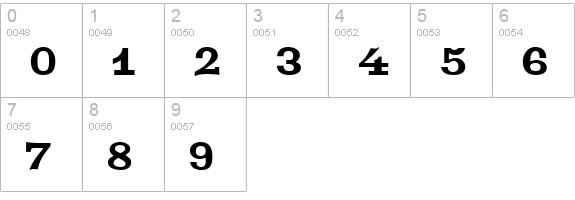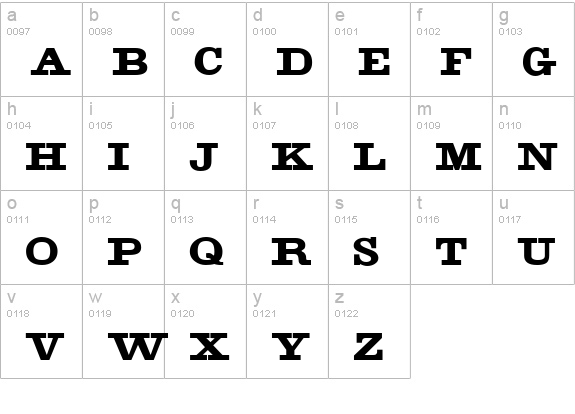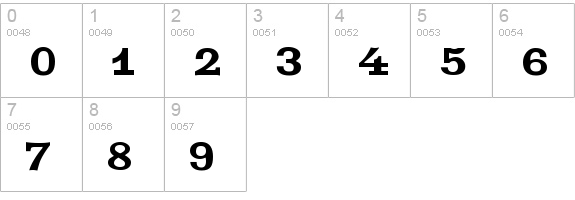
Industrial Regular is the standard, neutral variant in the Industrial typeface family \xE2\x80\x94 well suited to general body text, paragraphs, and standard typographic work.
Industrial Regular is a sleek and modern font that exudes professionalism and efficiency. Its clean lines and sharp edges make it perfect for conveying a sense of strength and precision in any design project. Whether you are creating a logo for an industrial company, designing a website for a manufacturing business, or crafting an advertisement for a technology product, Industrial Regular will make your message stand out. This font strikes the perfect balance between boldness and readability, allowing your text to be easily seen and understood. Its proportions are carefully crafted to ensure optimal legibility, even at smaller sizes. The carefully designed letterforms have a contemporary feel, making Industrial Regular a versatile choice for a wide range of applications. One of the best features of Industrial Regular is that it is freely available to download at FontsMarket.com. This means that you can easily obtain this high-quality font without any cost, making it an accessible option for both personal and commercial projects. With its availability as a free font, Industrial Regular empowers designers to create stunning visuals without breaking the bank. In addition to its aesthetic appeal and accessibility, Industrial Regular also offers a wide range of characters and symbols, including punctuation marks, numbers, and special glyphs. This extensive character set ensures that you have all the tools you need to create visually consistent and cohesive designs. Whether you are a professional designer or a beginner exploring the world of typography, Industrial Regular is a font that will elevate your designs to new heights. With its sleek and modern look, broad character set, and free availability, this font is a must-have addition to your font library. Download Industrial Regular today at FontsMarket.com and start creating impactful designs that leave a lasting impression.